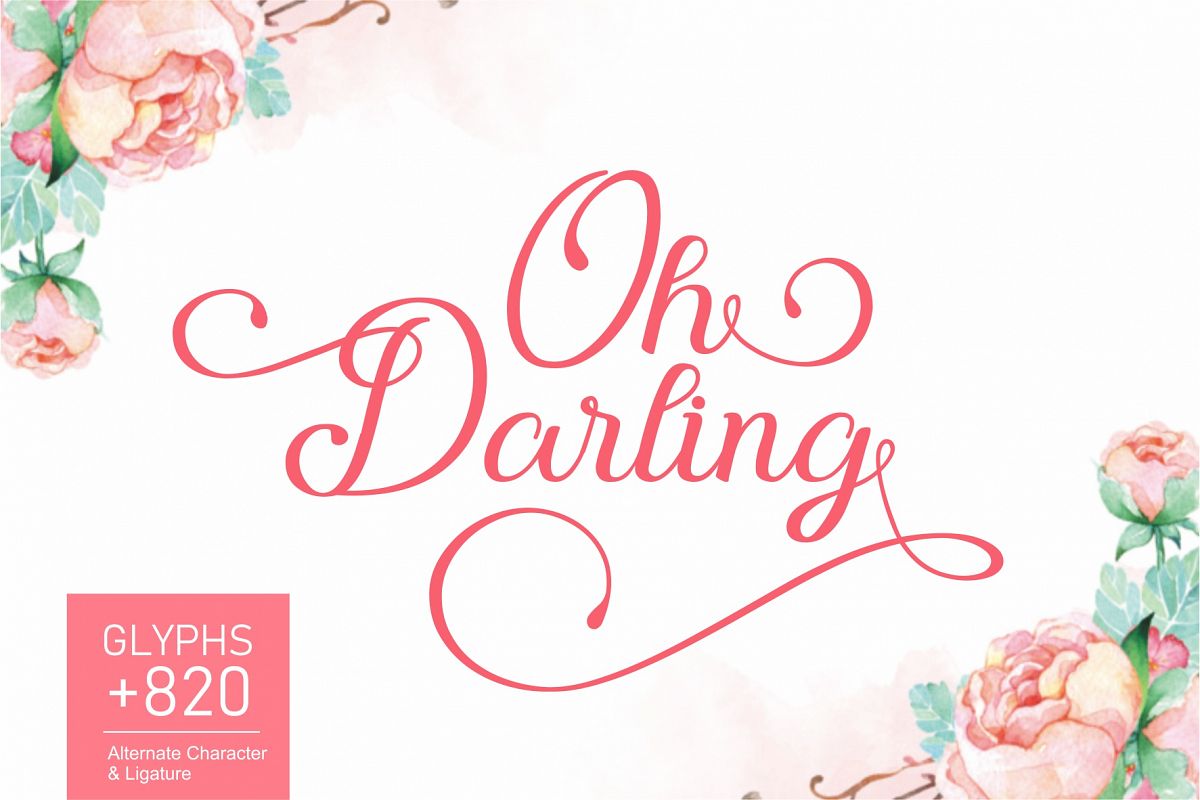
Oh Darling | Lovely Calligraphy Font
Oh Darling is fresh & modern script with a handmade calligraphy style. It features decorative characters and a dancing baseline!
It works great for many different uses, such as invitations, greeting cards, branding materials, business cards, quotes & posters, lettering and much more.
It’s packed with over 820 unique glyphs.The alternative characters were divided into several Open Type features such as Swash, Stylistic Sets, Stylistic Alternates, Contextual Alternates. The Open Type features can be accessed by using Open Type  programs such as Adobe Illustrator, Adobe InDesign, Adobe Photoshop Corel Draw X version, And Microsoft Word. And this Font has given PUA unicode (specially coded fonts). so that all the alternate characters can easily be accessed in full by a craftsman or designer.